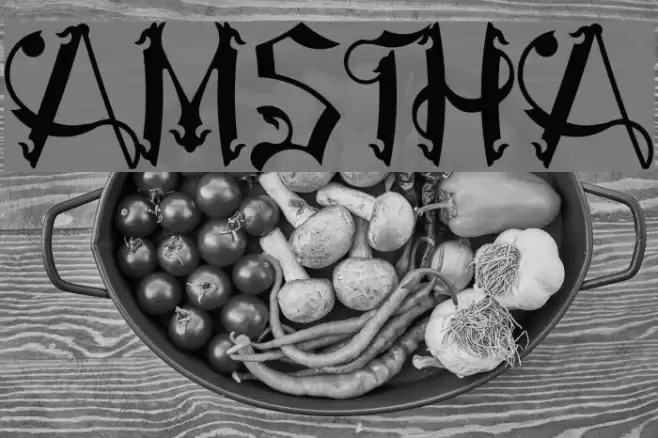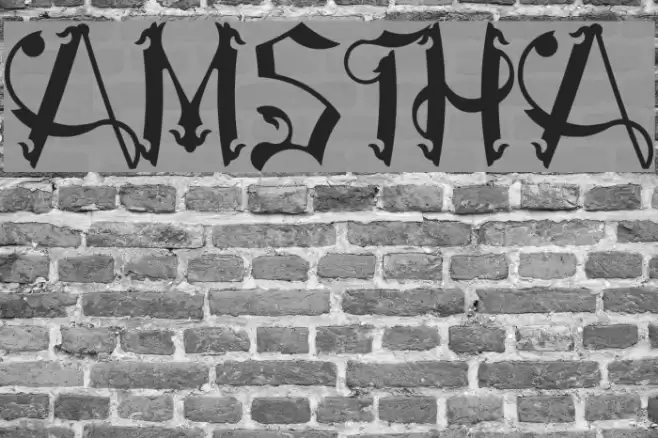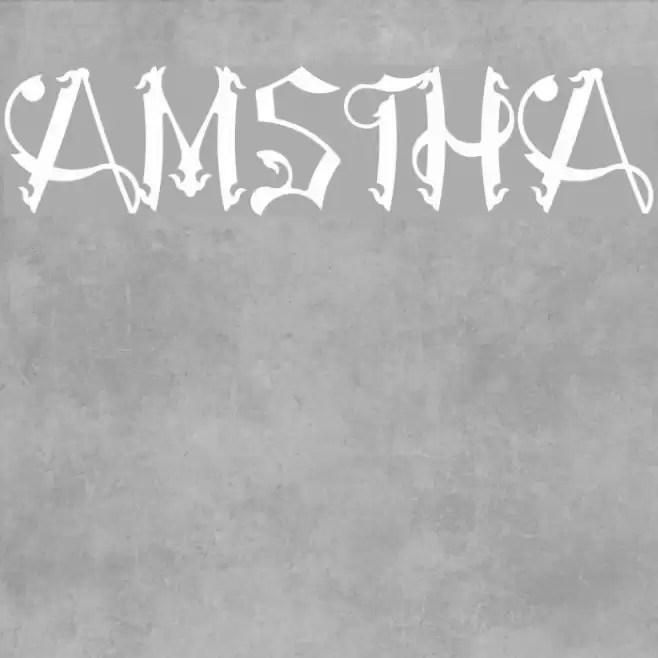
AMSTHA Font
AMSTHA Description
This font exhibits a bold and dramatic style, reminiscent of traditional blackletter typography. The characters are ornate with sharp, angular lines and intricate detailing, giving it a gothic and medieval appearance. The uppercase letters are particularly elaborate, featuring pointed serifs and decorative elements that enhance their visual impact. The lowercase letters maintain a cohesive design, with a slightly more subdued ornamentation compared to the uppercase. This font's unique style makes it stand out, ideal for creating a strong visual statement. The overall design is both historical and artistic, capturing the essence of classic calligraphy with a modern twist.
A bold, gothic-style blackletter font with intricate detailing and sharp, angular lines from Uncategorized fonts.
- Proposed Projects: Ideal for projects requiring a historical or gothic aesthetic, such as book covers, posters, or branding for themed events.
- Overall Style: Gothic, Decorative